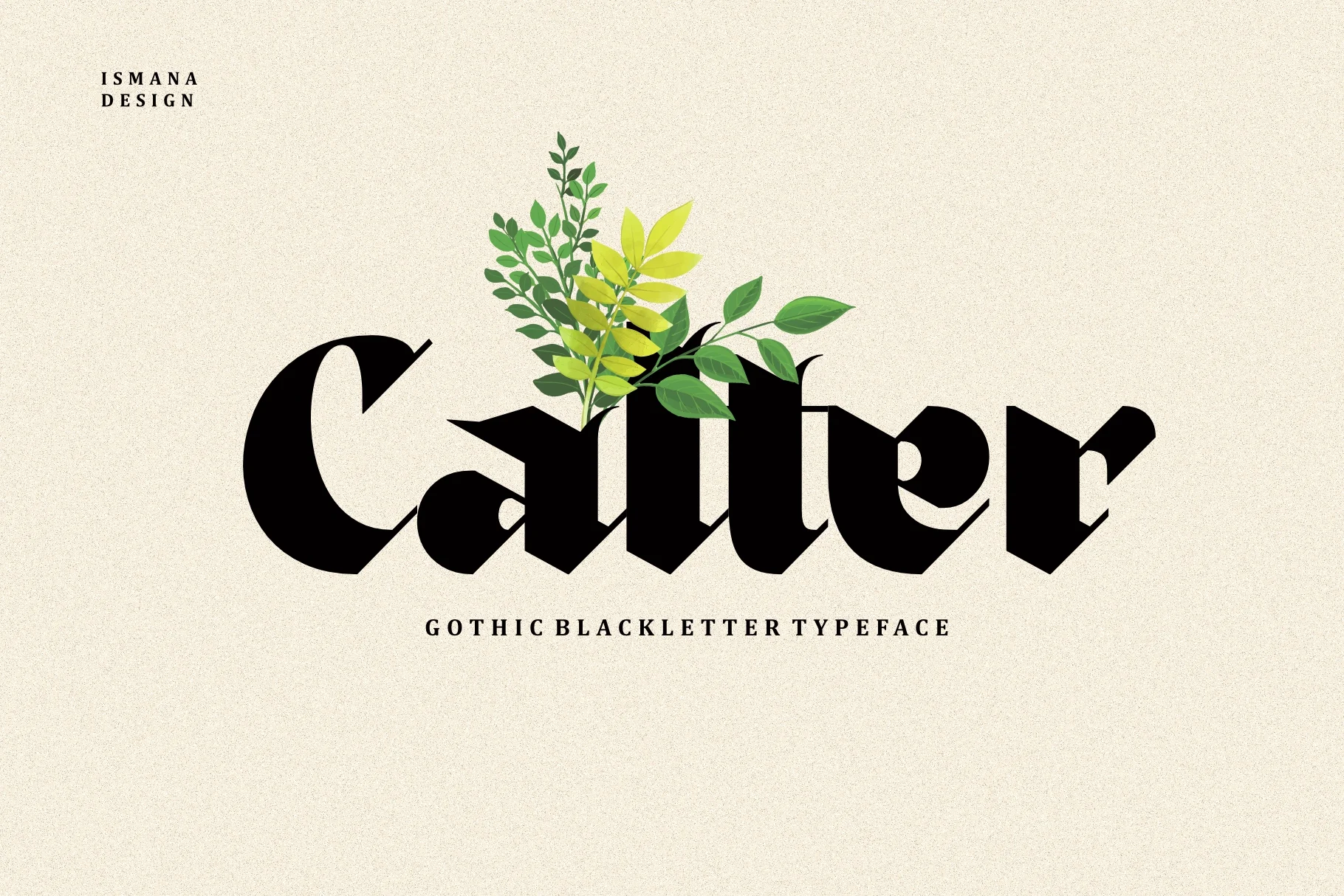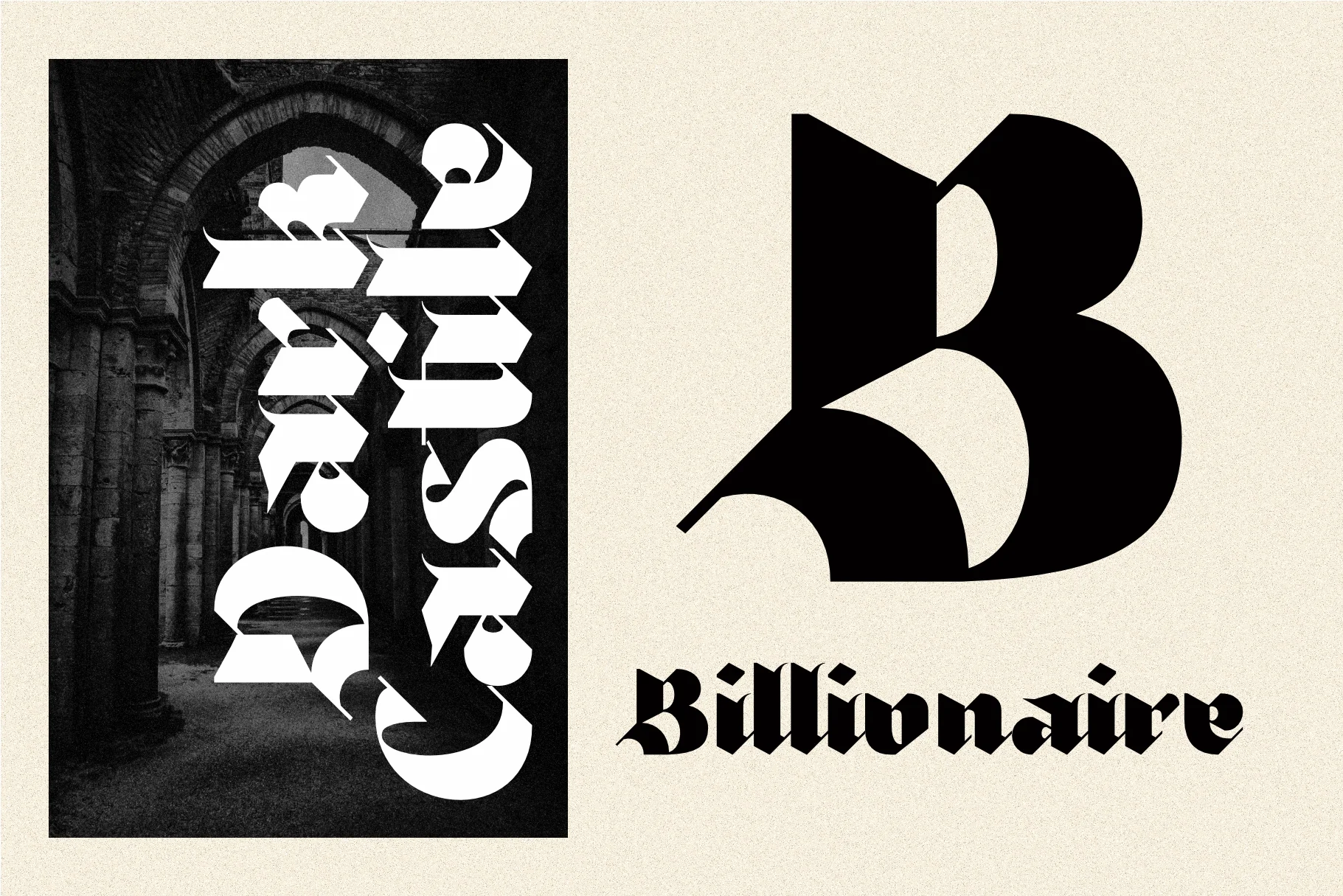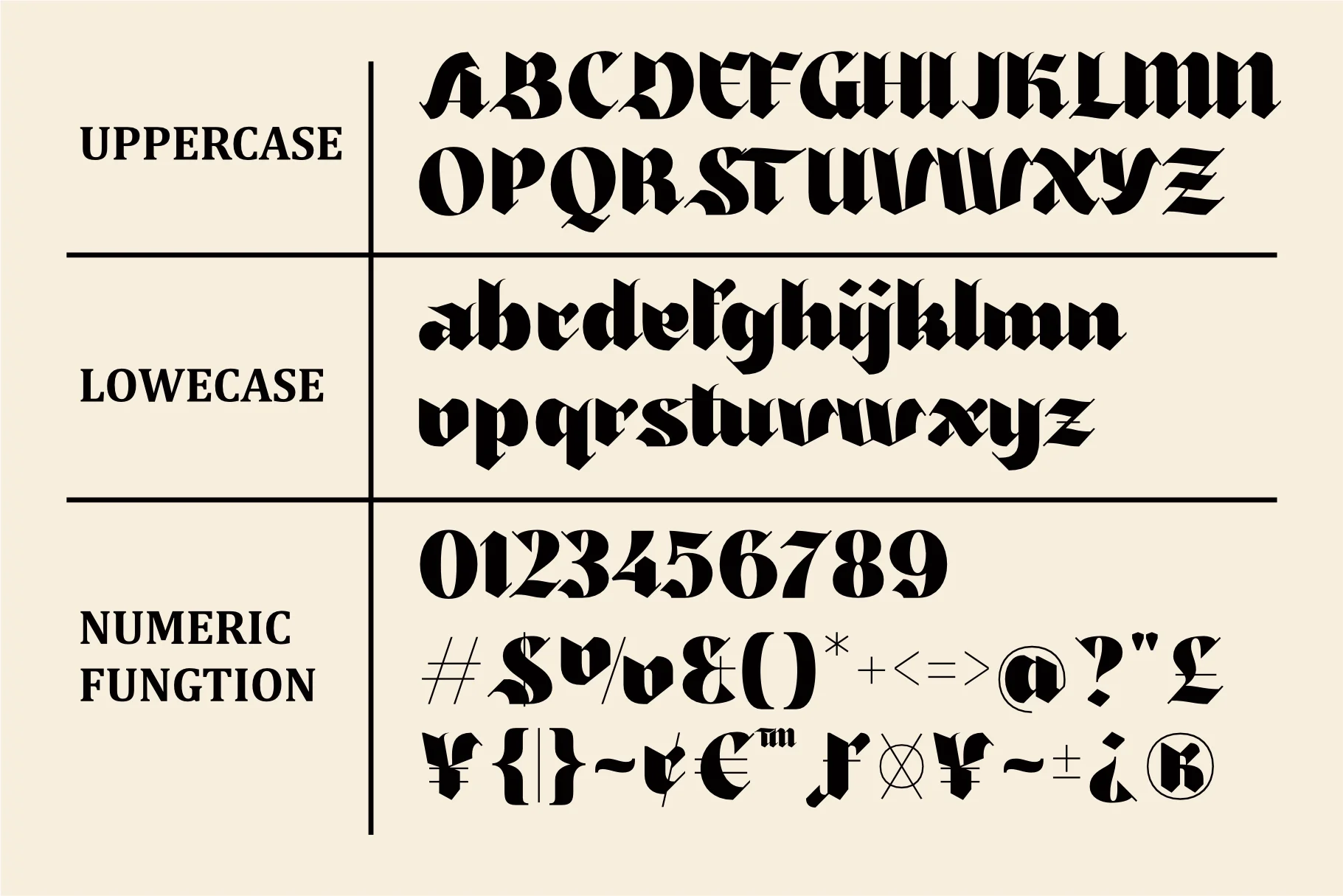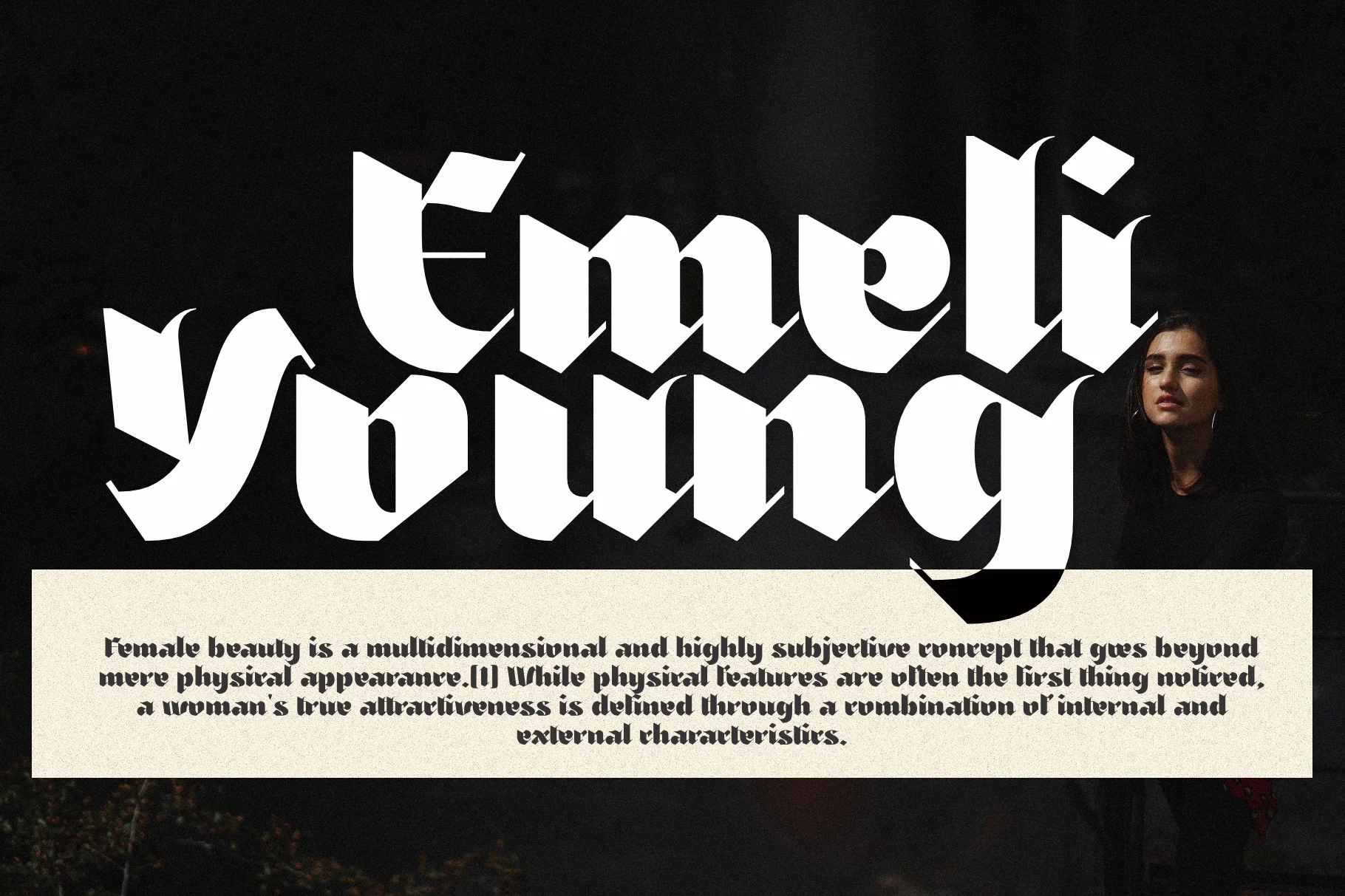
Calter
Calter, a modern Gothic Blackletter typeface designed by Ismana Design (Ismanayuda). Although the display text in the artwork is stylized to appear as "Catter," it is a high-impact display font that blends traditional medieval calligraphy with contemporary design elements.
Visual Characteristics
- Bold & Aggressive Structure: The typeface features the heavy vertical strokes and sharp, angular terminals characteristic of traditional Blackletter or Gothic scripts like Textura or Fraktur.
- Modern Refinement: Unlike historical scripts, Calter utilizes cleaner lines and balanced spacing, making it more legible and suitable for modern graphic design.
- Decorative Flourishes: The letterforms include sharp, thorn-like serifs and stylized curves that provide a sense of power and mystery.